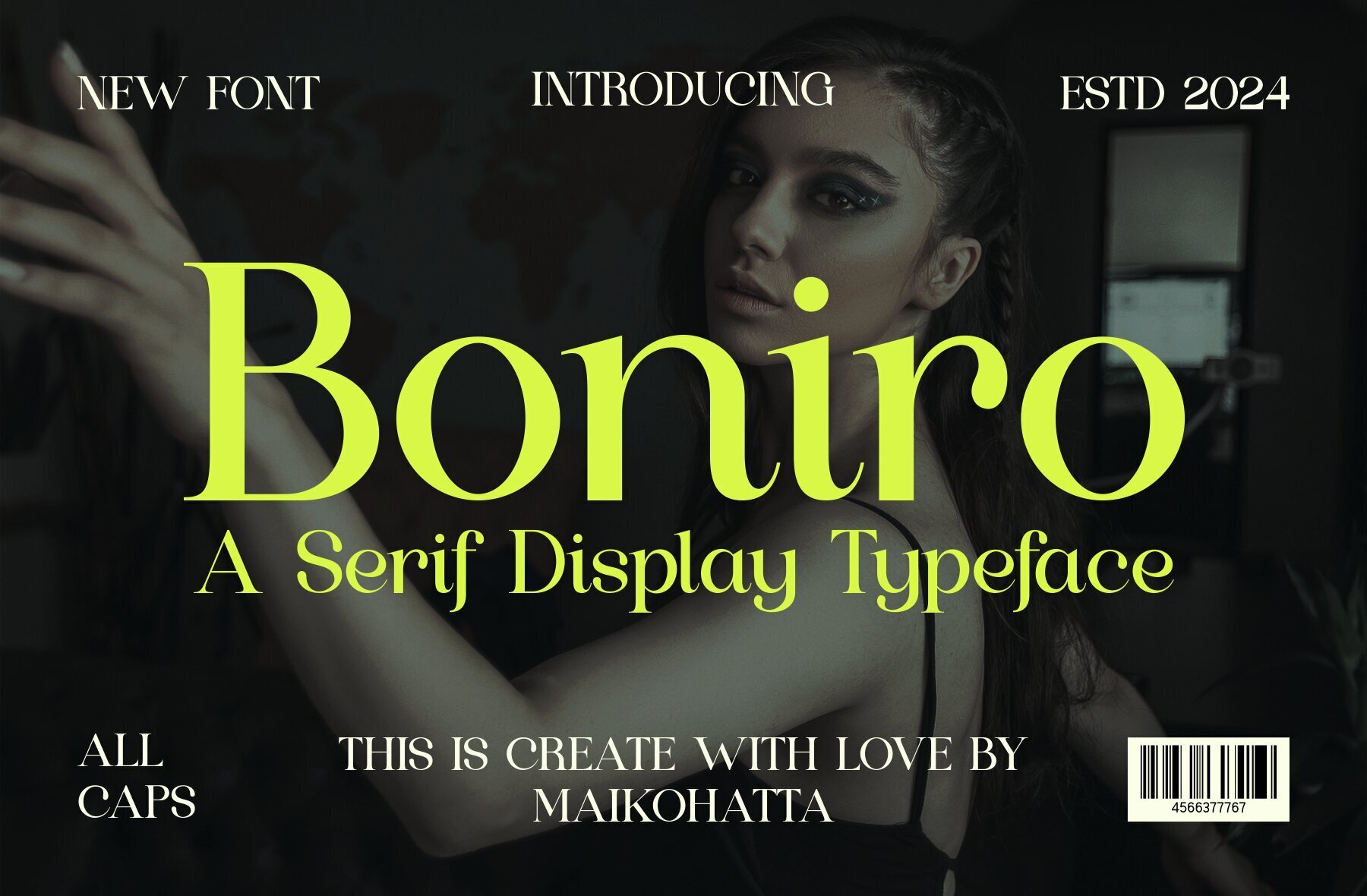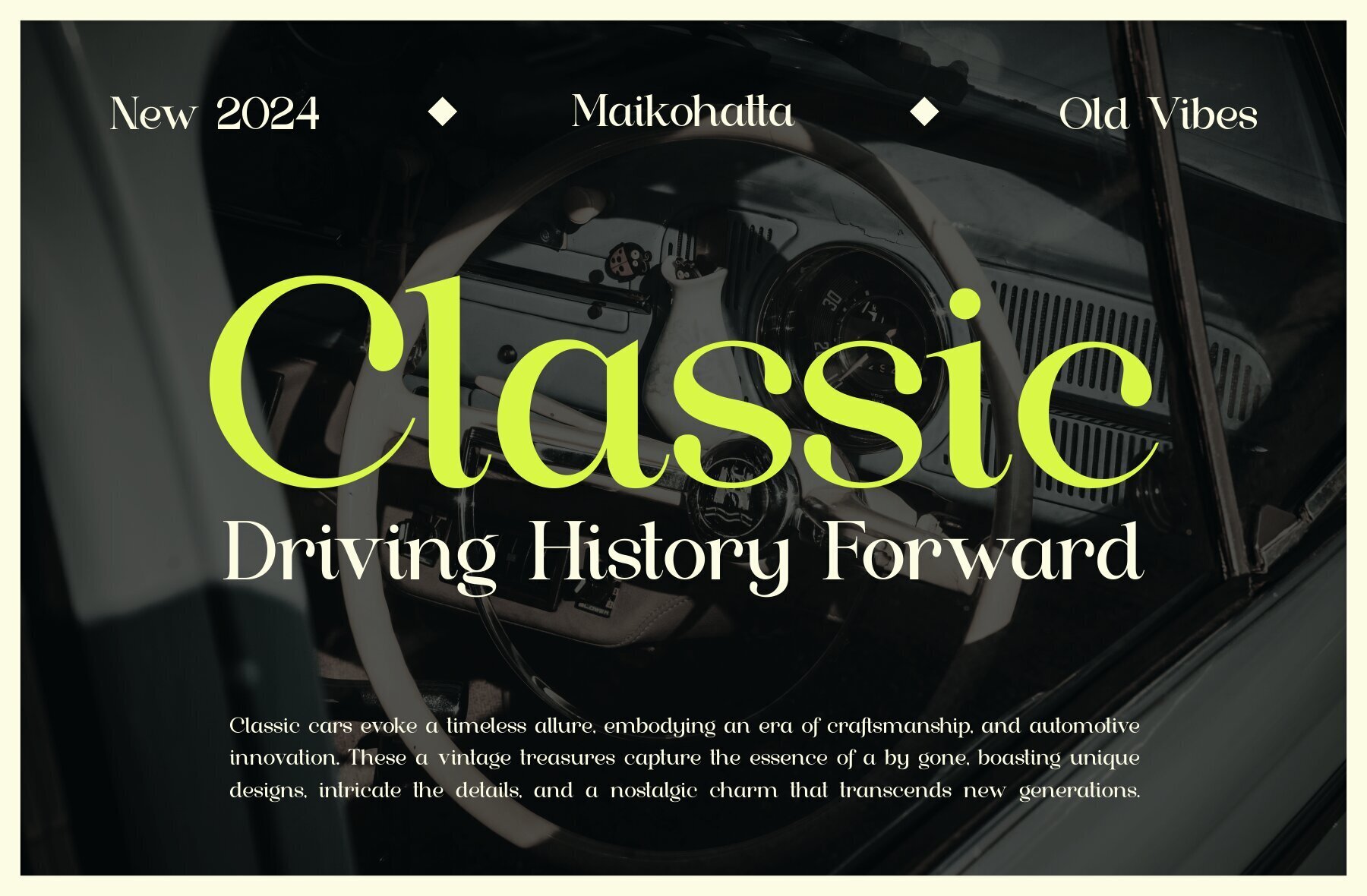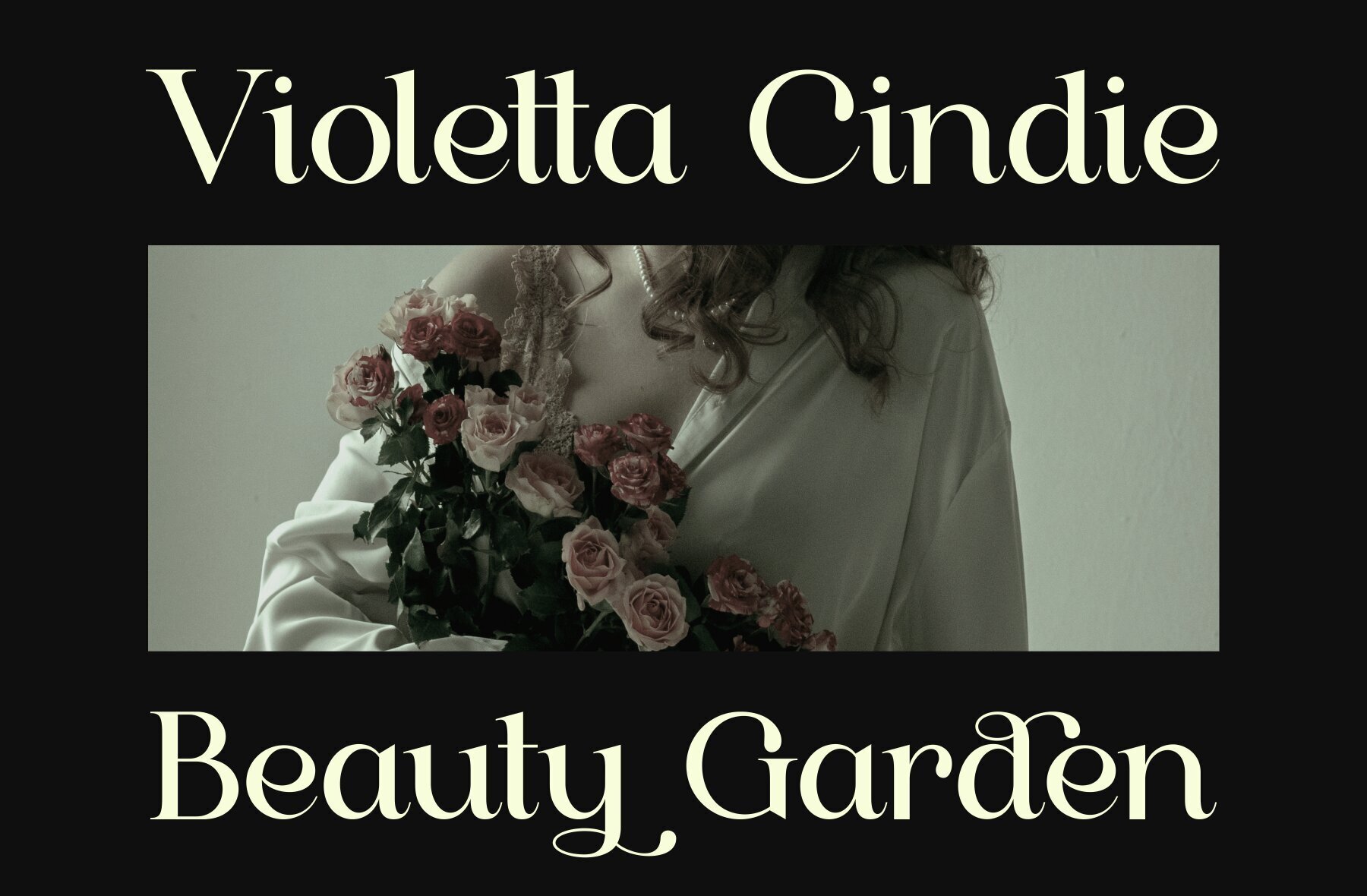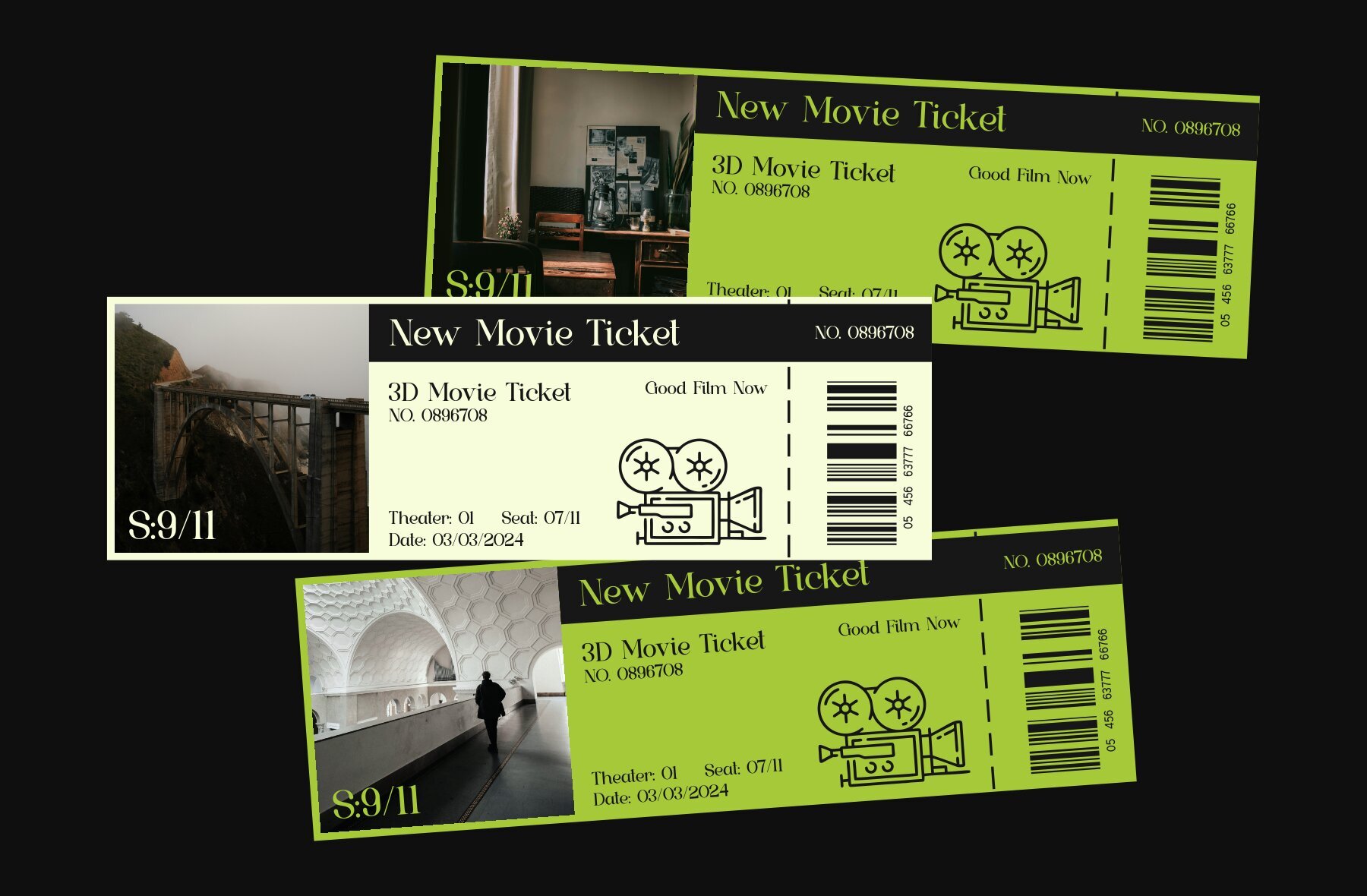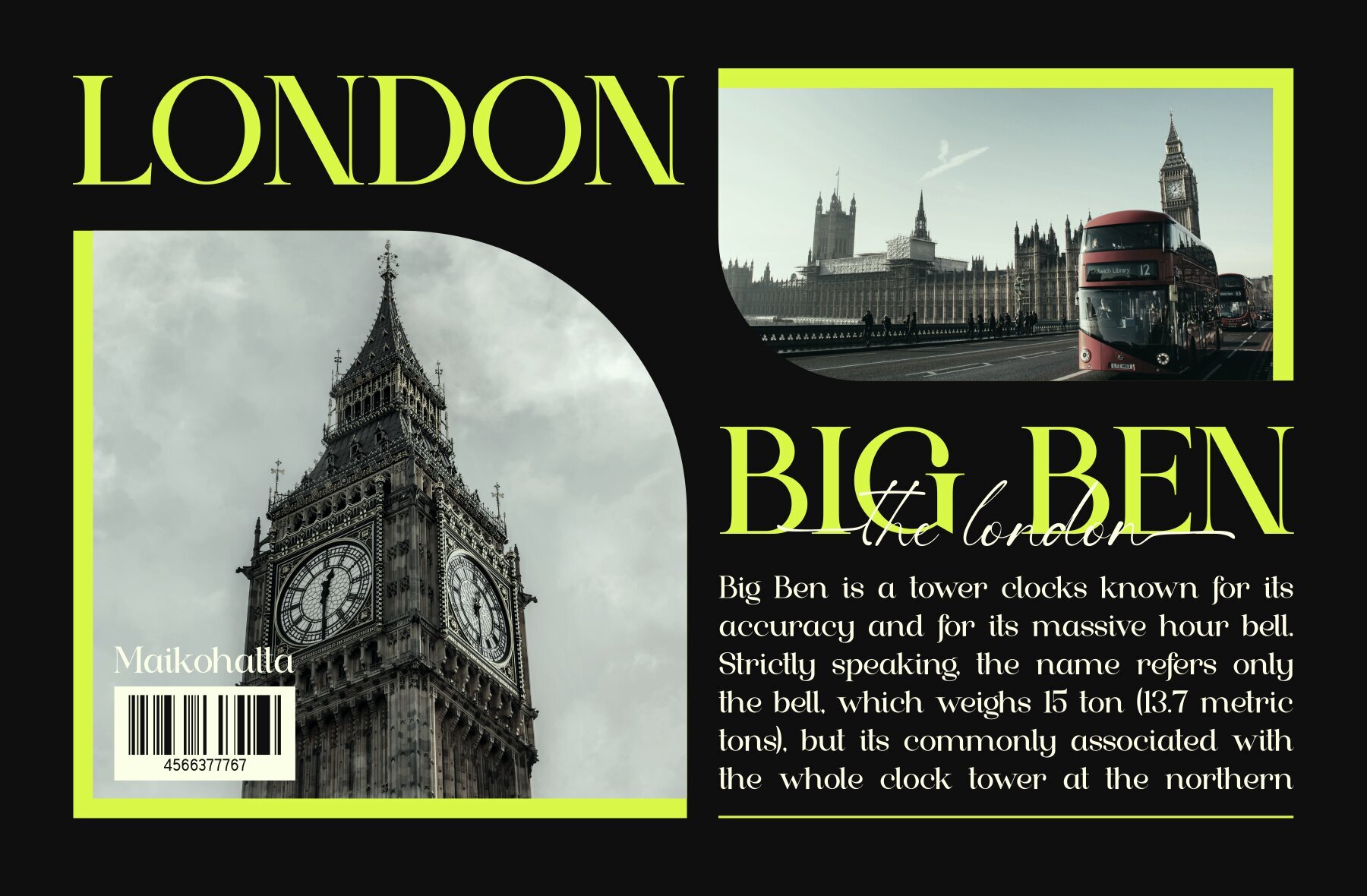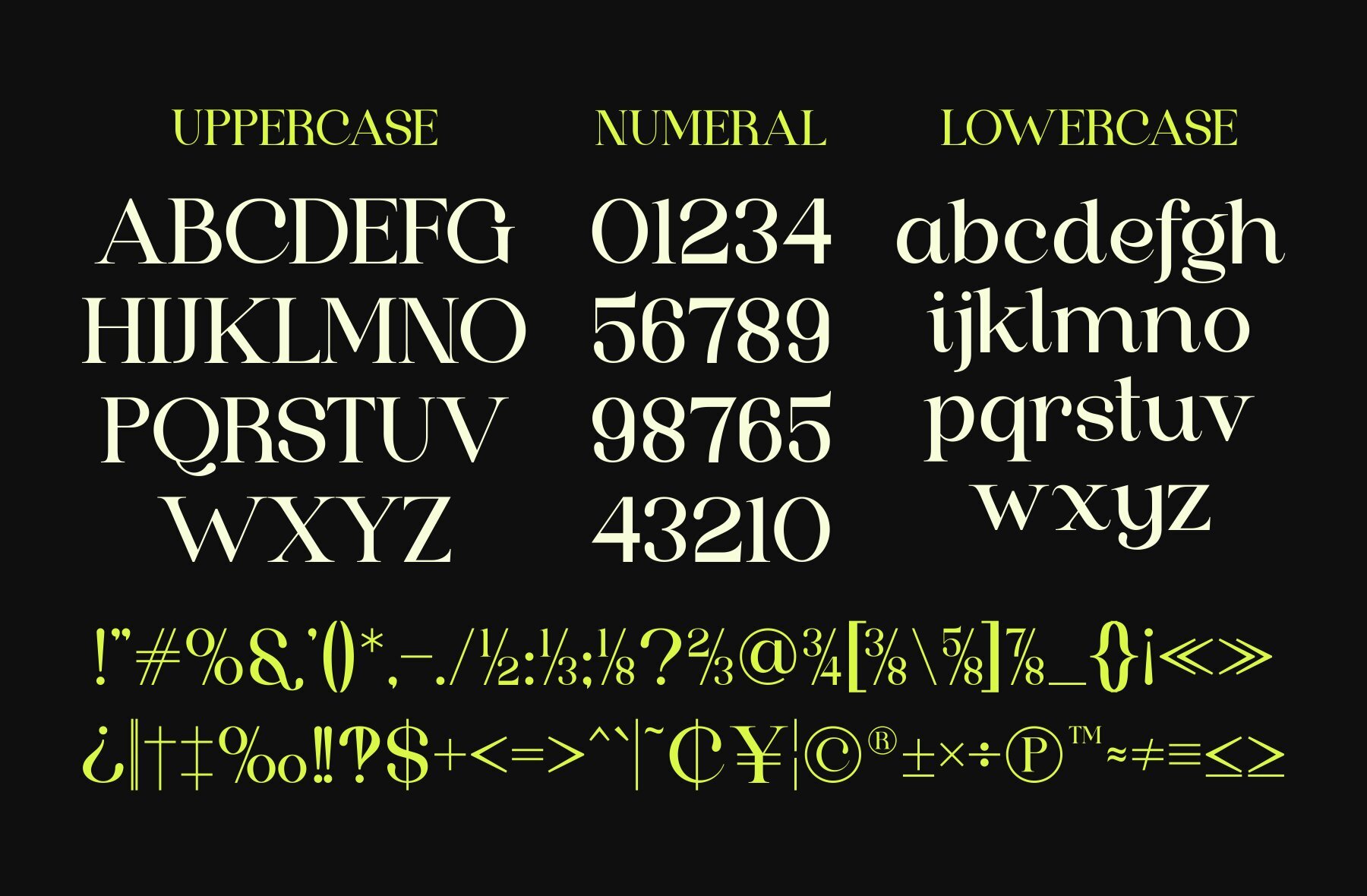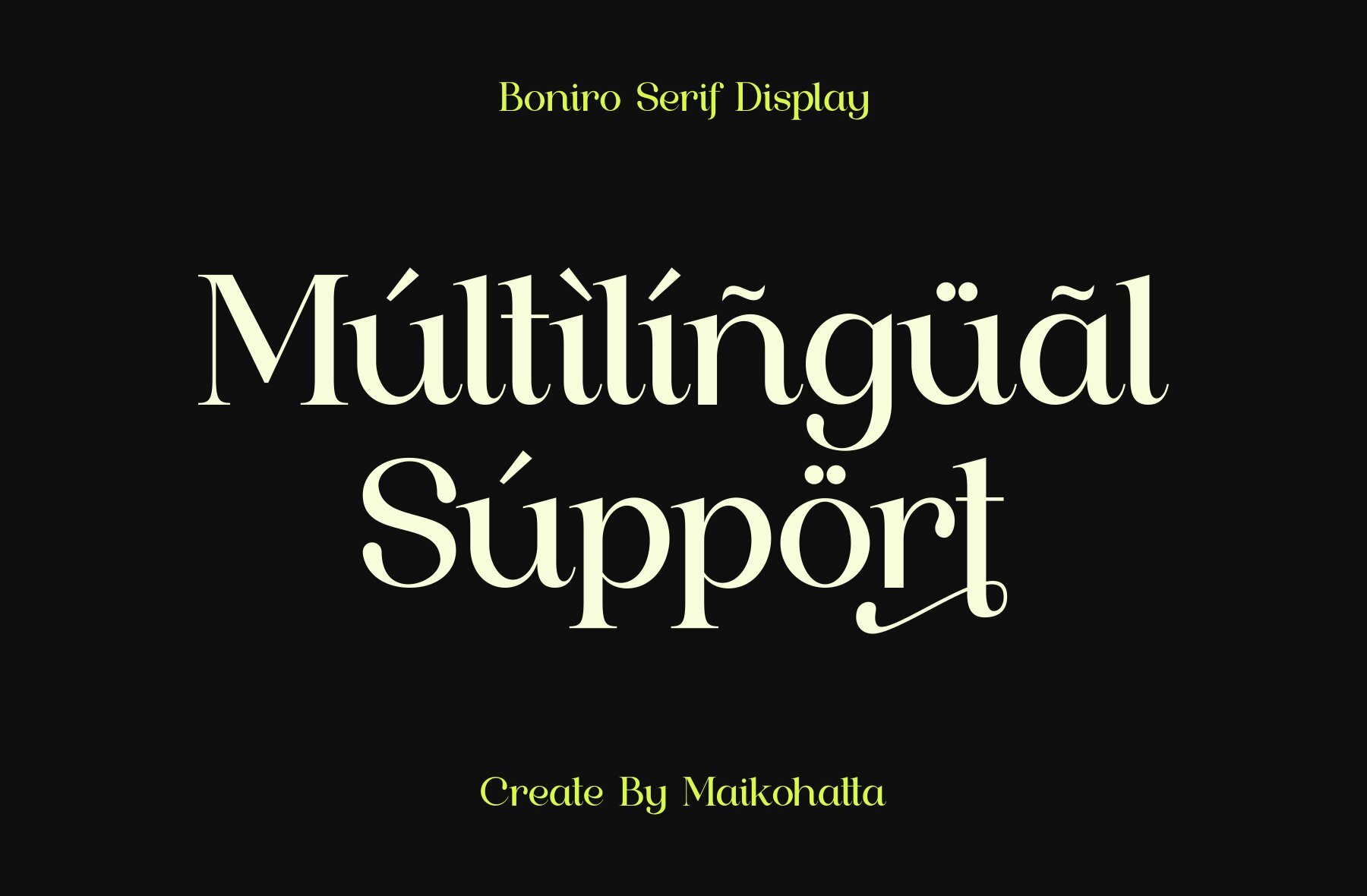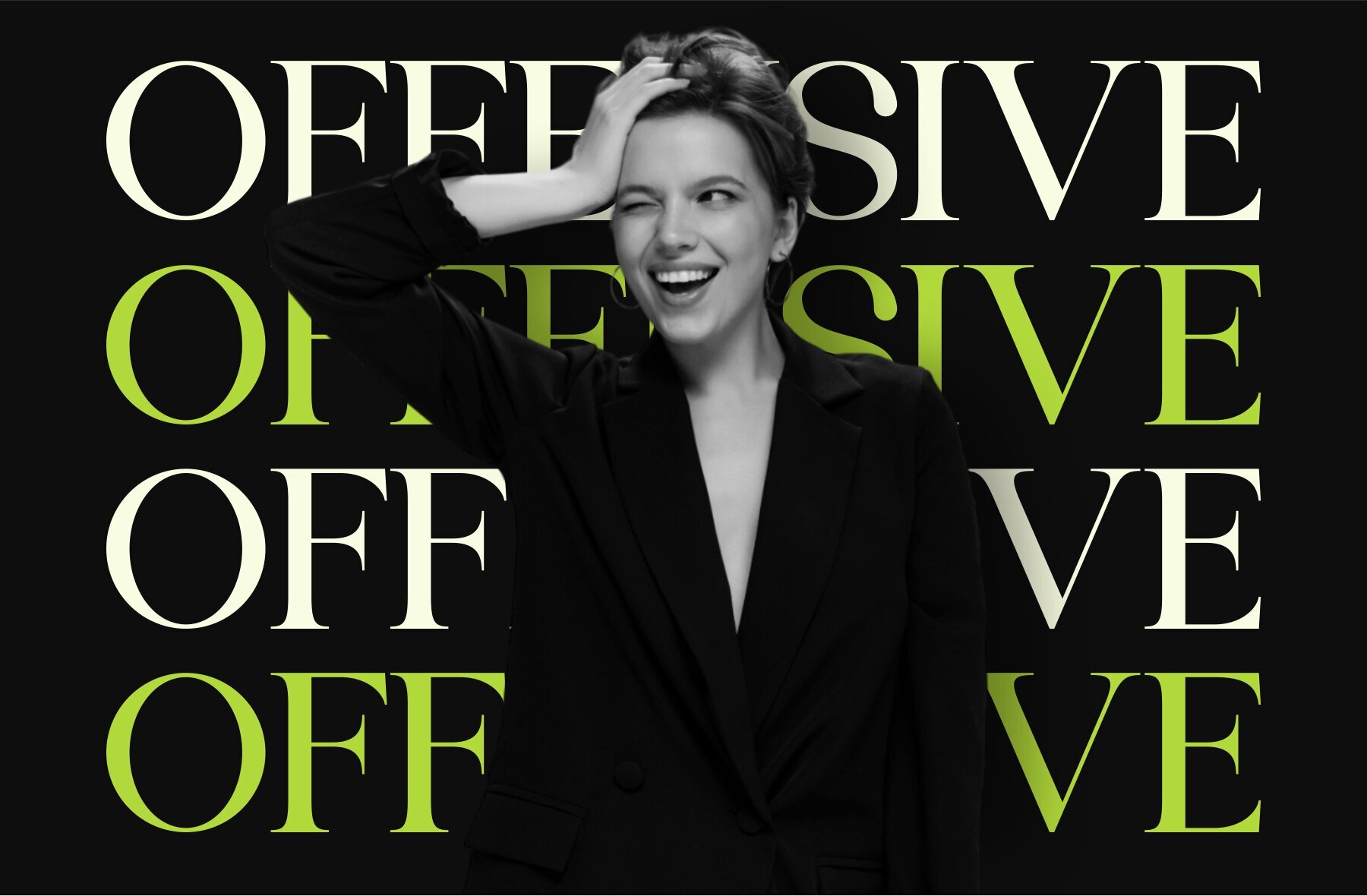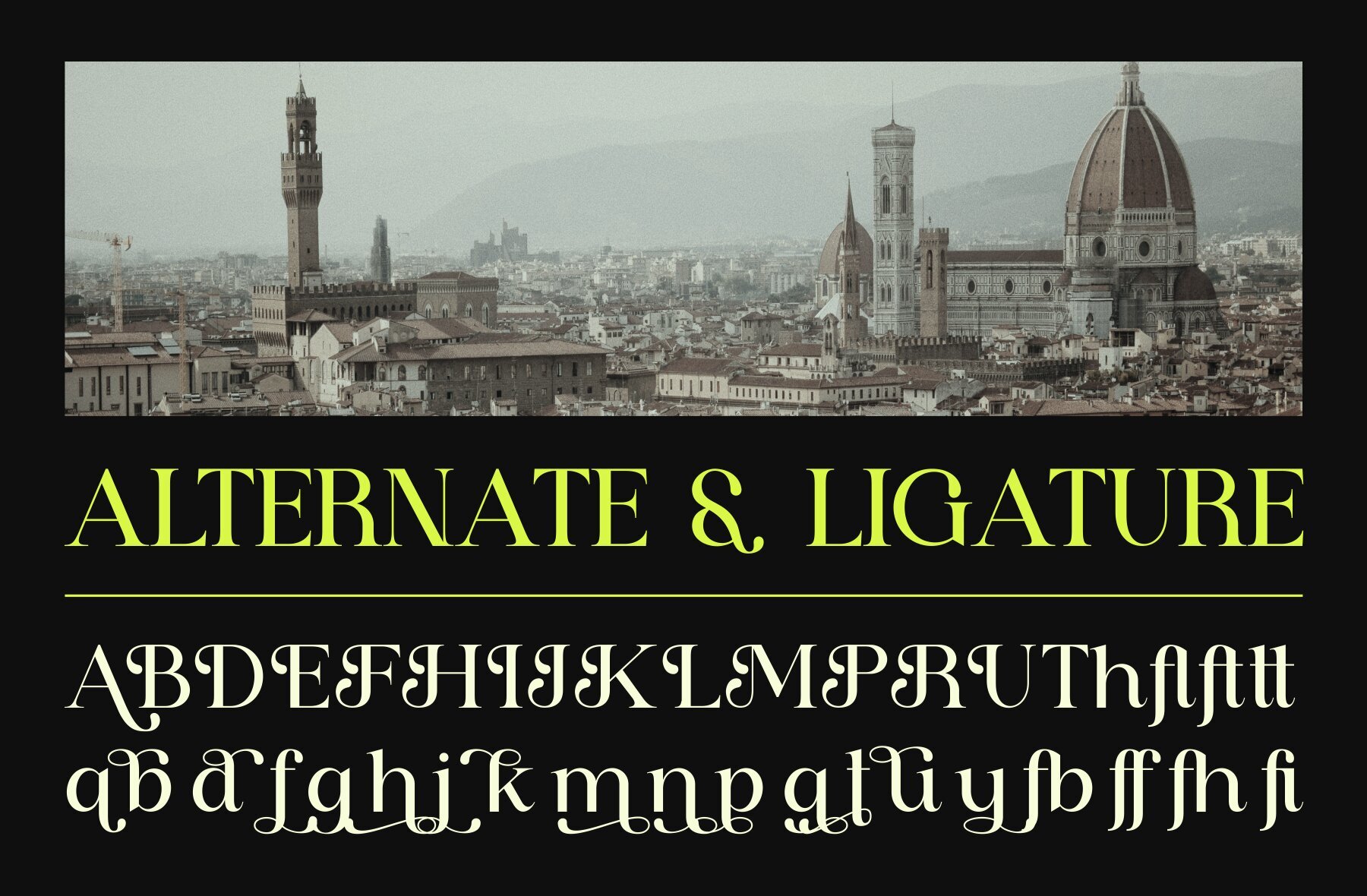
Boniro Font
Boniro Regular
Boniro is a serif display typeface that combines balanced stroke thickness with fine lines, resulting in visually appealing and easily readable text. Its modern serif design distinguishes itself by the bold contrast between thick and thin strokes, offering a subtle yet standout appearance.Boniro: Balanced Serif Display Typeface